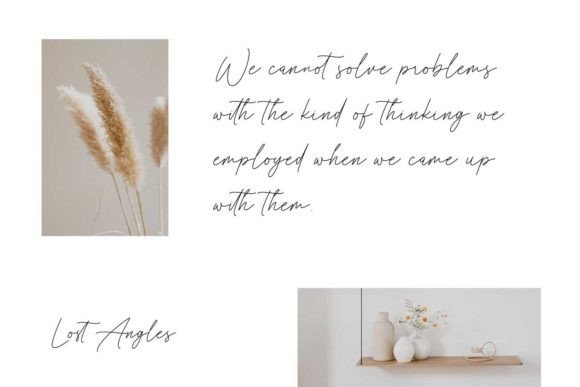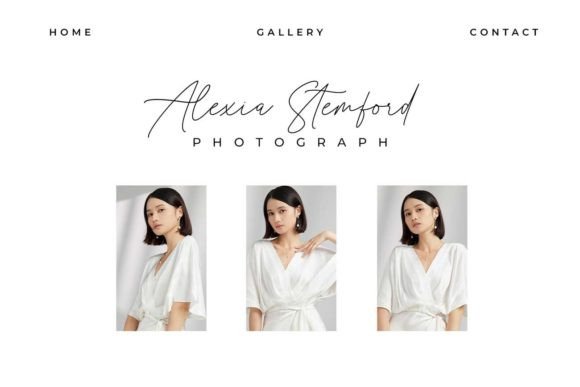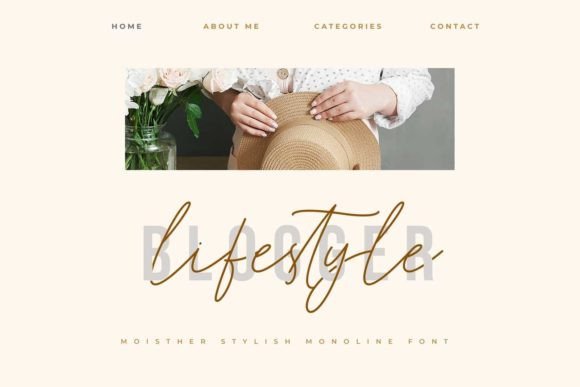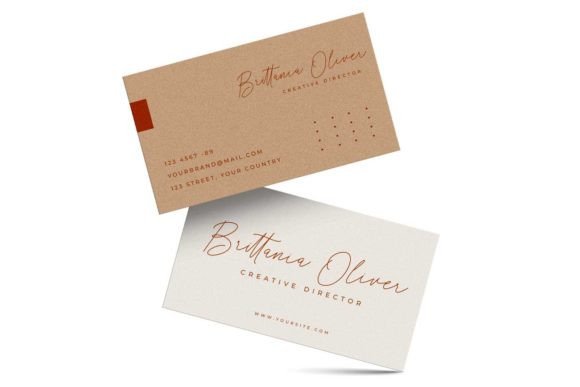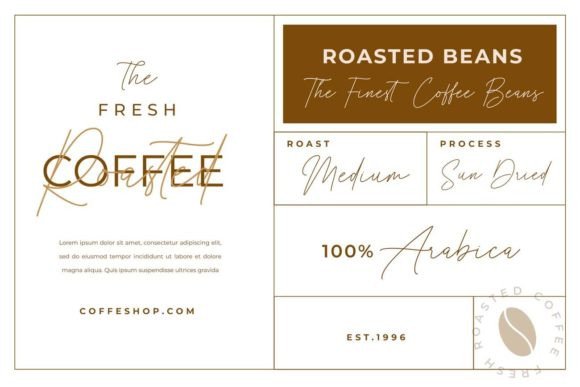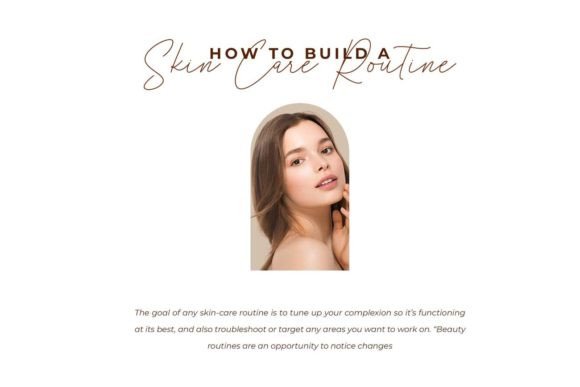
Introduction to Moisther Font
As a designer, there’s nothing quite like the thrill of discovering a new font that elevates your creative project to the next level. It’s that moment when all the elements come together, and your design suddenly feels more polished, more refined, and more you. For many designers, this moment is a constant pursuit – a quest for the perfect font that brings their vision to life.
Enter Moisther Font, a stylish and elegant addition to your design resource arsenal. With its luxurious feel and modern aesthetic, Moisther Font is the perfect choice for designers looking to add a touch of sophistication to their work. Whether you’re creating a business card, a magazine, or a logo, Moisther Font is sure to make a lasting impression.
Honest Review: Moisther Font
As a designer, I’m always on the lookout for high-quality design resources that can elevate my creative projects. Recently, I stumbled upon the Moisther Font, and I’m excited to share my thoughts on it.
- The Moisther Font offers a unique and elegant design aesthetic that’s perfect for branding and editorial projects.
- The font is highly customizable, with a range of OpenType features that allow for advanced typographic control.
- The font family includes a range of weights and styles, making it easy to find the perfect fit for your project.
- The font may not be suitable for projects that require a transparent background, as it’s not optimized for this use case.
- The font family is relatively small, which may limit its versatility for complex design projects.
Overall, I’m impressed with the Moisther Font’s high quality and creative potential. While it may have some limitations, it’s an excellent addition to any designer’s toolkit. With its elegant design aesthetic and advanced typographic features, it’s sure to elevate any creative project.
Moisther Font
Tips for Getting the Most Out of Moisther Font
Use Moisther Font on a transparent background to create a seamless design.
Experiment with different font sizes and styles to achieve the desired look.
Combine Moisther Font with other design elements, such as images and graphics, to create a unique design.
Common Use Cases for Moisther Font
Moisther Font is ideal for creative projects, such as:
Brochures and flyers
Business cards and letterheads
Presentations and documents
Websites and blogs